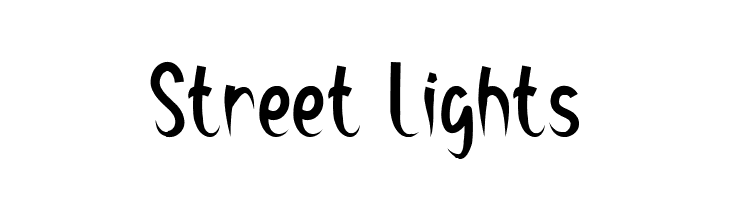
A dynamic, artistic font with sharp, angular strokes and playful curves.
A lively, handwritten-style font with bold, dynamic strokes and a playful character.